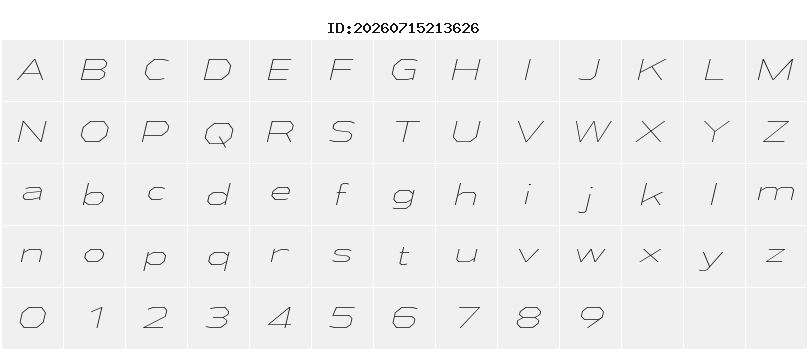
Athabasca Ex El Preview
• Font Name: Athabasca Ex El
• Designer: Ray Larabie
About Athabasca Ex El.ttf
Athabasca Ex El.ttf is a modern, elegant sans-serif font designed for ultimate readability and visual harmony. Perfect for branding, headlines, web design, and print materials.